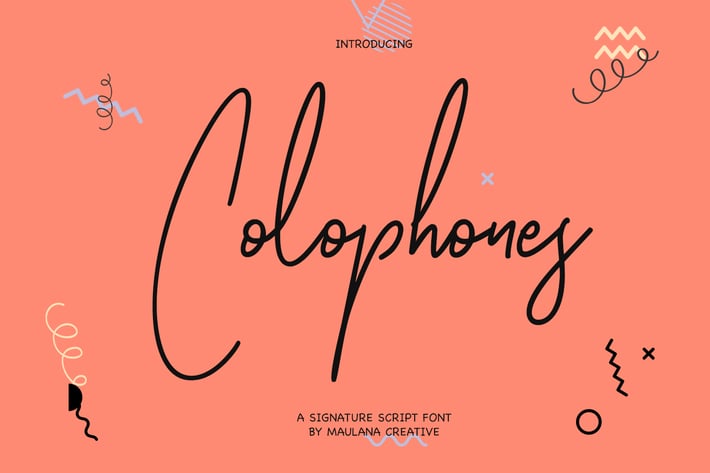
Colophones Signature Script Calligraphy Font
Give your designs an authentic handcrafted feel. Colophones Signature Script Calligraphy Font is perfectly suited to stationery, logos and much more.